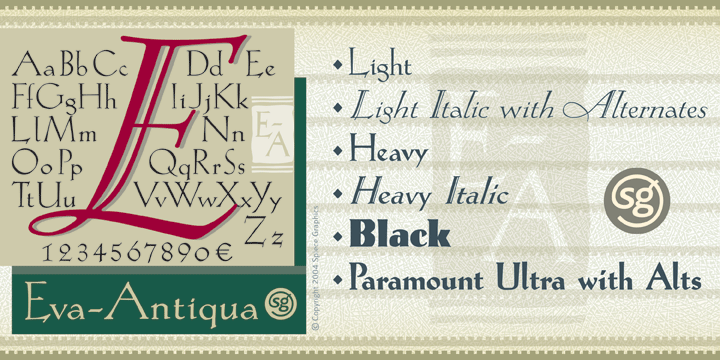
Eva Antiqua SG Font Free Download is a timeless serif typeface that brings elegance and sophistication to any design project. Inspired by classic typography, this font features delicate serifs, refined stroke contrast, and excellent readability, making it perfect for editorial layouts, book covers, branding, invitations, and luxury packaging.
Whether you're designing for a high-end brand or creating content that demands a touch of tradition and class, Eva Antiqua SG Font Free Download offers a perfect blend of heritage and modern usability. Its graceful letterforms add a sense of refinement without sacrificing legibility, ensuring your message is delivered with both beauty and clarity.